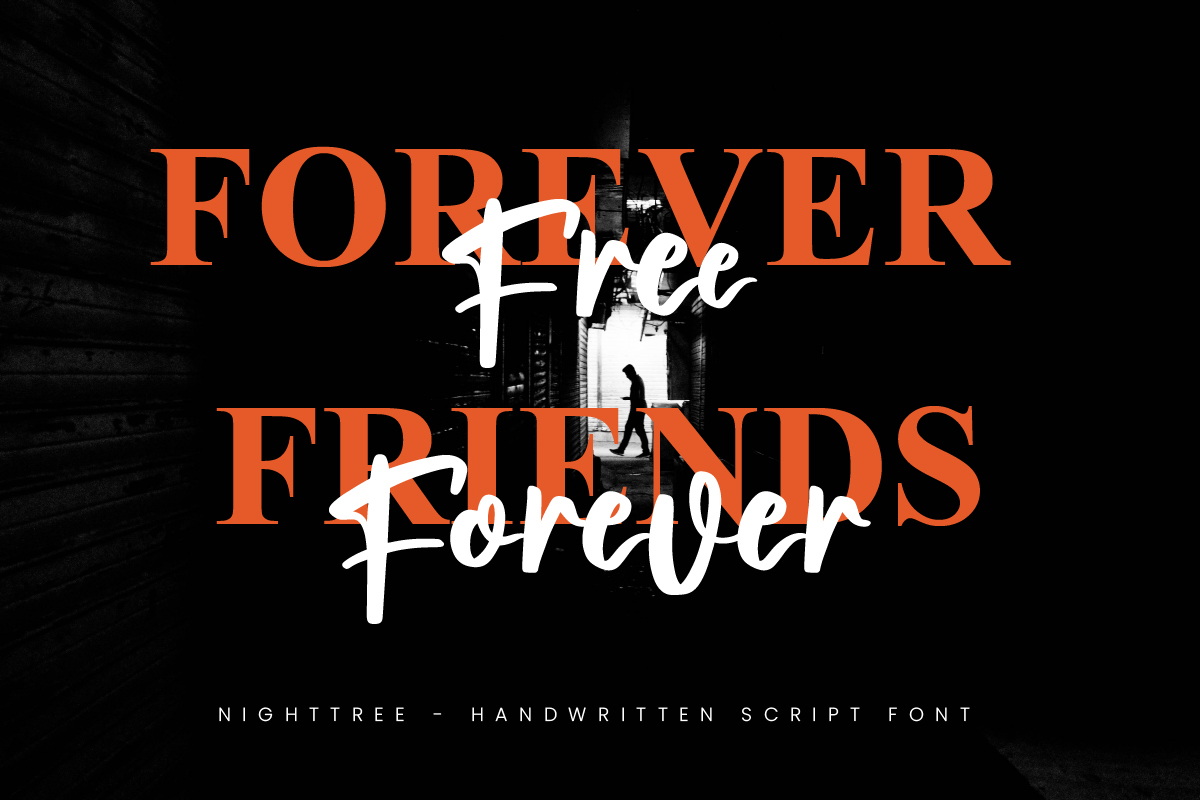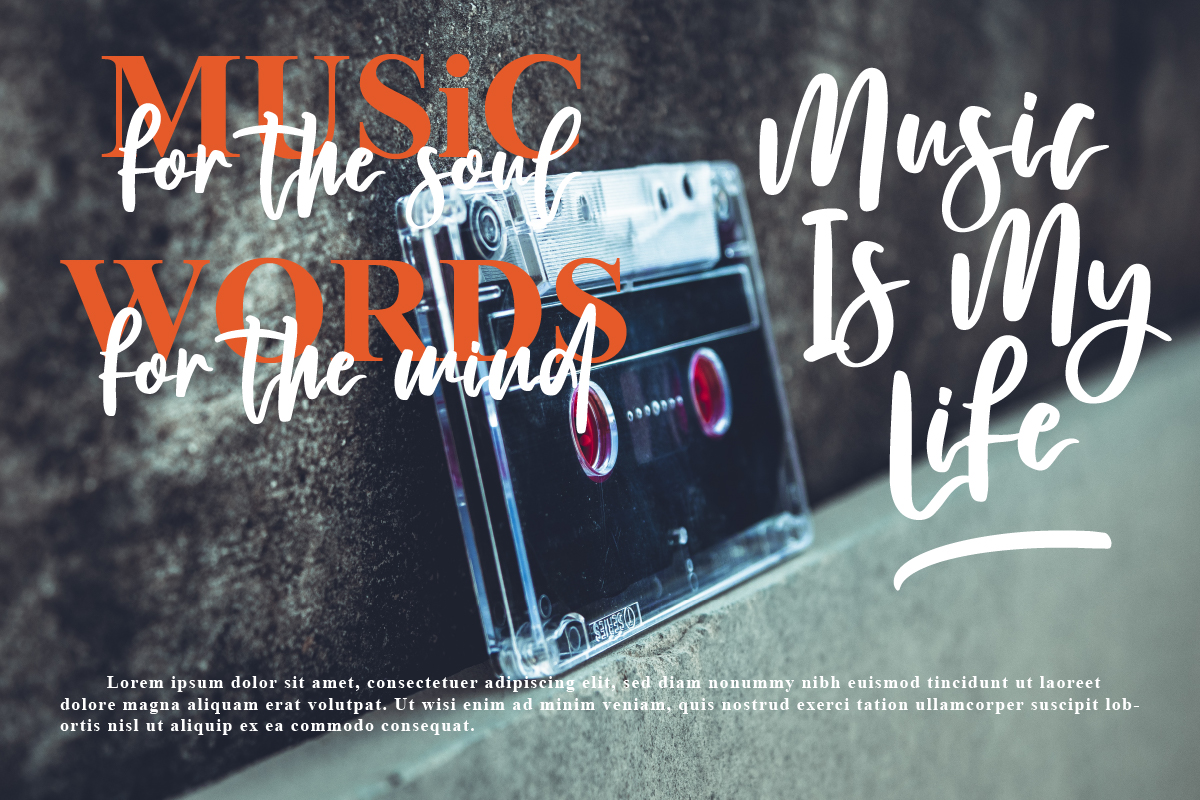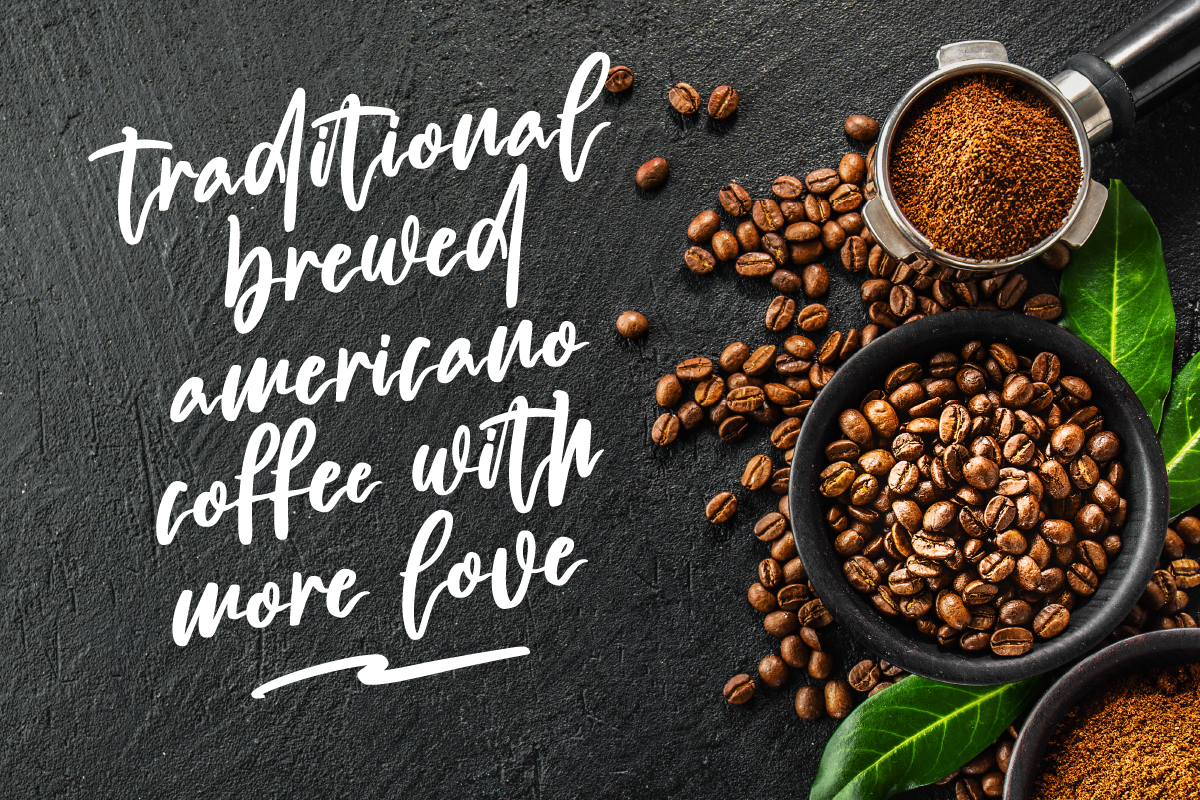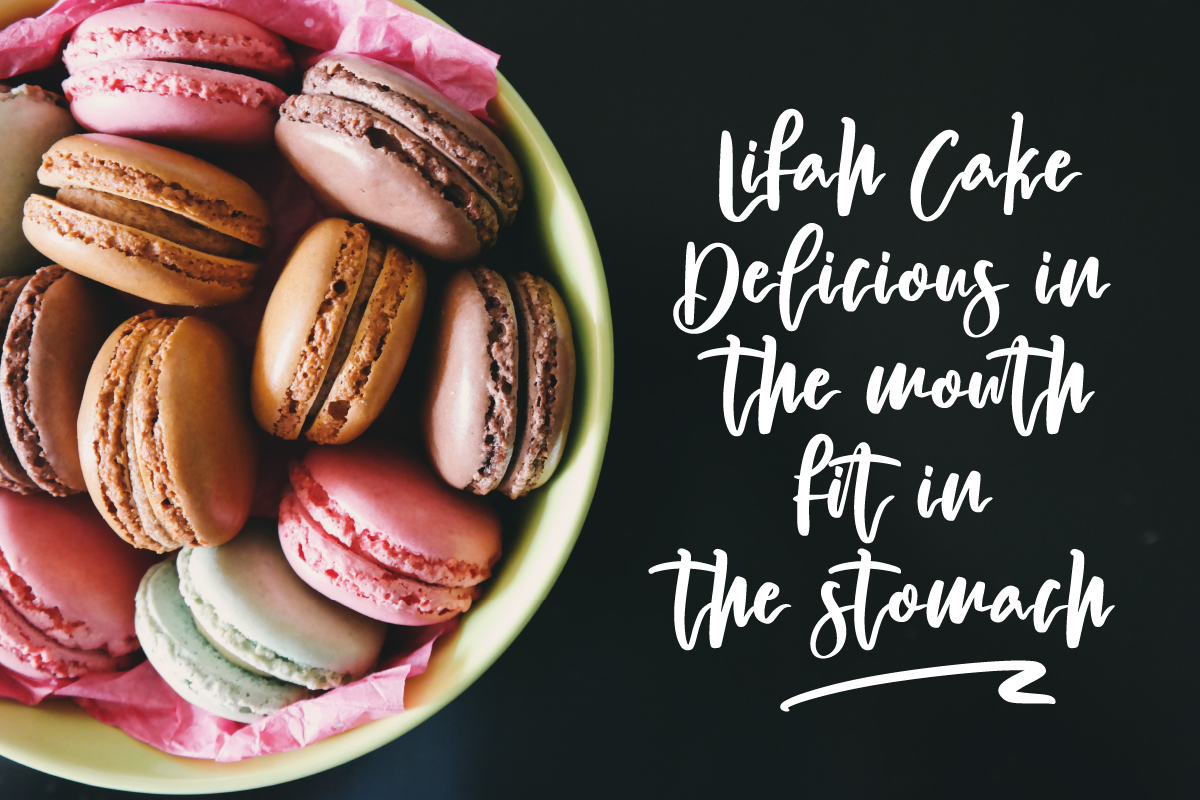
Nightree Font
Nightree Script Font
This is a lovely script font featuring charming, playful characters that seem to dance along the baseline. It is PUA encoded which means you can access all glyphs and swashes with ease!